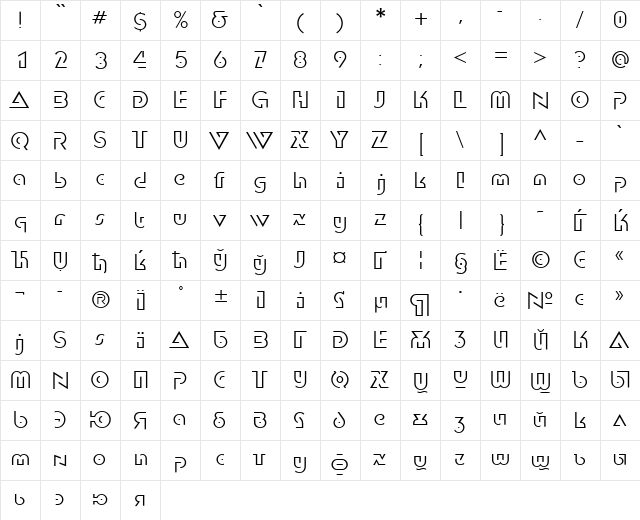
DublonLightC Regular
| Foundry | ParaType, Inc |
Design Context for DublonLightC Typeface
DublonLightC is a composed and adaptable typeface that performs quietly and consistently across a wide range of design contexts. The delicate stroke weight brings airiness and refinement to layouts.